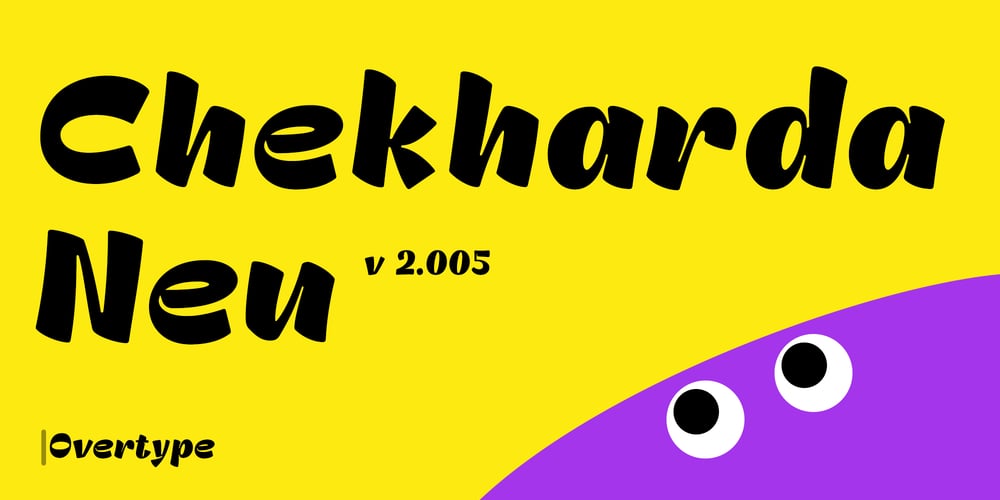
OT Chekharda Neu Font Family was designed by Evgeniy Agasyants and published by Overtype. OT Chekharda Neu contains 1 styles and family package options. The Chekharda Neu typeface is a cousin of the free the Chekharda typeface. It’s based on its sibling, but it has its own unique personality and a cool contrast in strokes and weird shapes. That makes it a great choice for using on packaging, cards, and anywhere you want to create a child-like atmosphere and a sense of fun.